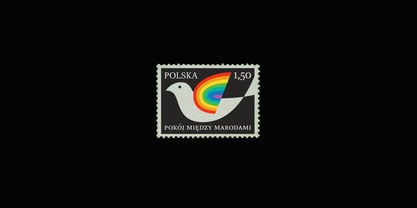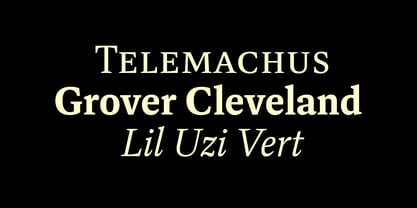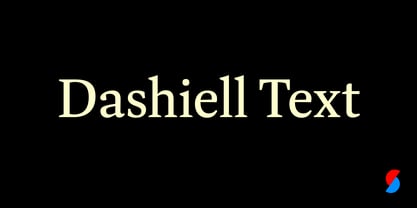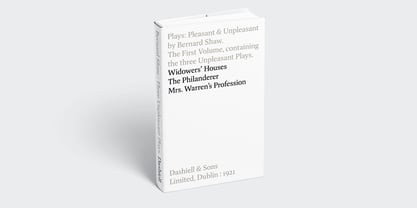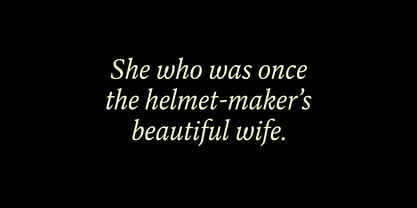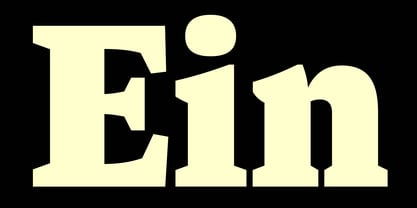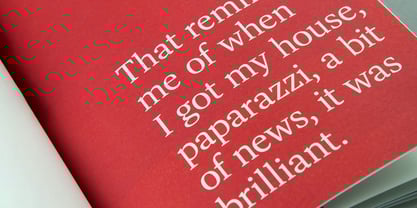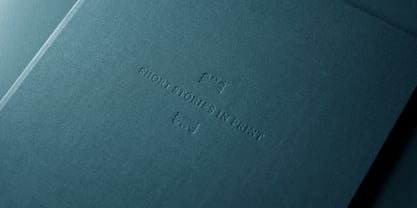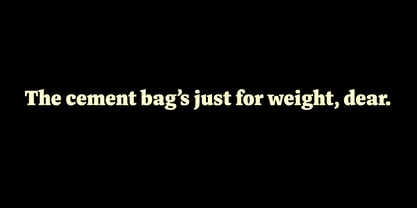
Dashiell Text
by Signal Type Foundry
The Dashiell Text Font Family was designed by Max Phillips and published by Signal Type Foundry. Dashiell Text contains 12 styles and family package options.
Dashiell was made to be read. Designed by a devoted reader with lousy eyesight, it’s an attempt to combine the warmth and frankness of Caslon with the lucid elegance of Garamond. Counters and x-height are ample but not large. Apertures are moderately open, and unbracketed wedge serifs add crispness. The collection includes three families: Dashiell Text, Dashiell Bright, and Dashiell Fine, for a total of 31 styles. Dashiell Text is the anchor: an all-around workhorse with quiet detailing and modest contrast, carefully balanced to work both onscreen and on paper. It’s available in in six weights with matching italics. Regular weights are clear and open, but sturdy enough to perform at small sizes. The Black weights are unusually dark for a classic serif, with a hint of Cooper Black. Named for Dashiell Hammett, whose succinct grace helped modernize twentieth-century American fiction, Dashiell Text supports over 140 languages and includes proportional and tabular lining and oldstyle figures, small caps, case-sensitive punctuation and delimiters, and a selection of borders and ornaments. Of course, it pairs well with its sister faces, Dashiell Bright and Dashiell Fine.